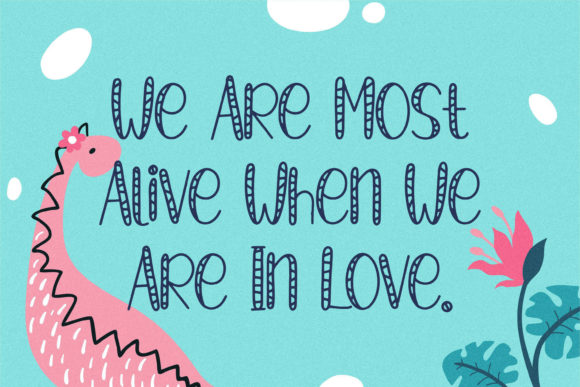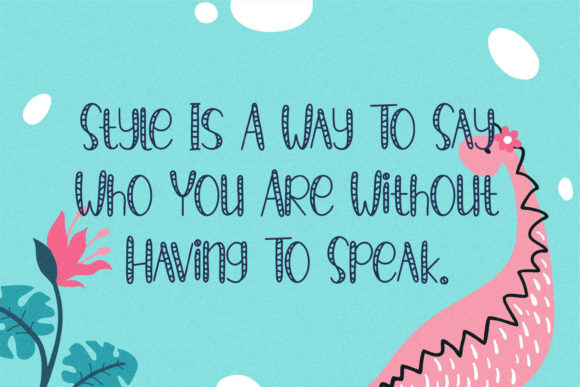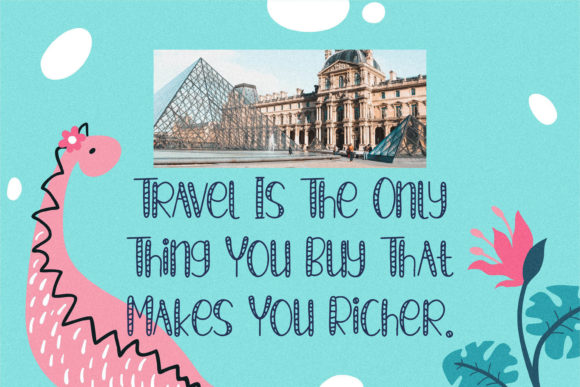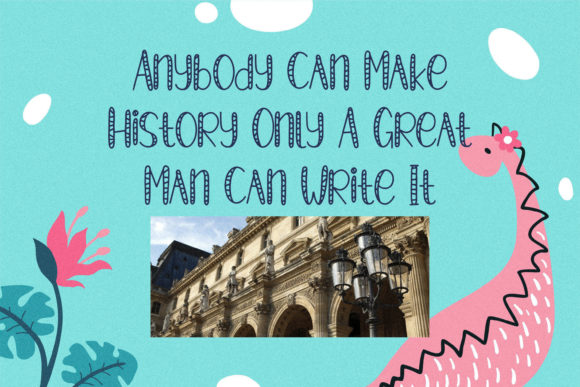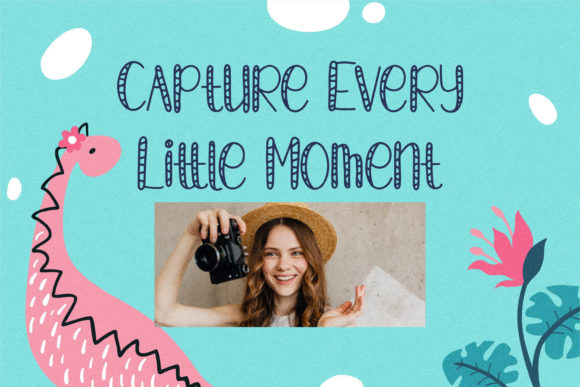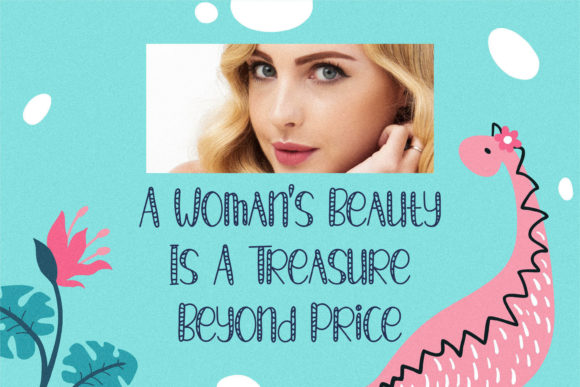
Candy Dino Font: The Sweetest Addition to Your Design Collection
Are you tired of using the same old fonts in your designs? Do you want to add a touch of fun and playfulness to your creations? Look no further than the Candy Dino Font! This cool and friendly display font is perfect for cartoon-related designs, children’s games, and any project that requires a lovely touch.
What is Candy Dino Font?
Candy Dino Font is a unique and eye-catching font that is sure to capture the attention of your audience. Its playful and whimsical design makes it perfect for designs that require a fun and youthful vibe. The font is inspired by the sweetness of candies and the friendliness of dinosaurs, making it a one-of-a-kind addition to your font collection.
Features of Candy Dino Font
- Cool and Friendly Design: The Candy Dino Font has a cool and friendly design that is sure to appeal to designers and crafters of all ages.
- Playful and Whimsical: The font’s playful and whimsical design makes it perfect for cartoon-related designs, children’s games, and other projects that require a fun and youthful vibe.
- Easy to Read: Despite its playful design, the Candy Dino Font is easy to read and can be used for a variety of design projects, from titles and headings to body text.
- Versatile: The font is versatile and can be used for a wide range of design projects, from digital designs to print materials.
Uses of Candy Dino Font
The Candy Dino Font is perfect for a variety of design projects, including:
- Cartoon-related designs: The font’s playful and whimsical design makes it perfect for cartoon-related designs, such as character designs, comics, and animated movies.
- Children’s games: The font is perfect for children’s games, such as puzzle games, adventure games, and educational games.
- Party invitations: The font’s fun and playful design makes it perfect for party invitations, such as birthday party invitations, baby shower invitations, and graduation party invitations.
- Branding and packaging: The font can be used for branding and packaging designs, such as candy packaging, toy packaging, and food packaging.
Why Choose Candy Dino Font?
There are many reasons why you should choose the Candy Dino Font for your design projects. Here are a few:
- Unique and eye-catching: The font’s unique and eye-catching design makes it sure to capture the attention of your audience.
- High-quality: The font is high-quality and is designed to work perfectly on a variety of devices and platforms.
In conclusion, the Candy Dino Font is a cool and friendly display font that is perfect for cartoon-related designs, children’s games, and any project that requires a lovely touch. Its playful and whimsical design makes it sure to capture the attention of your audience. With its ease of use, affordability, and high-quality design, the Candy Dino Font is a great addition to any design collection.